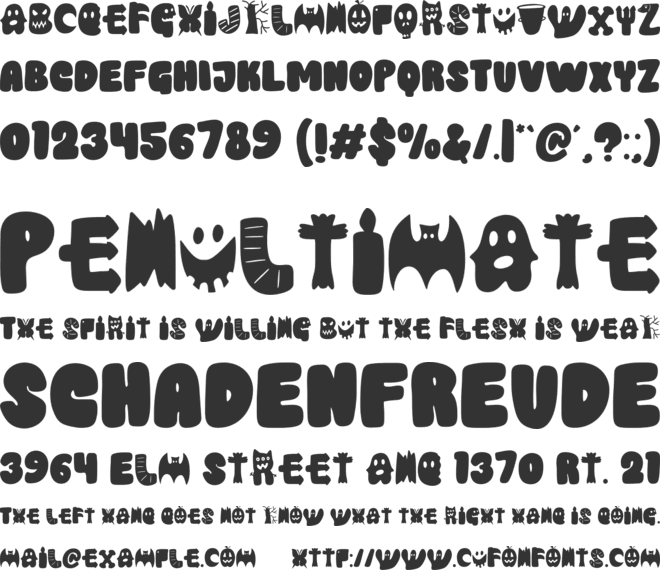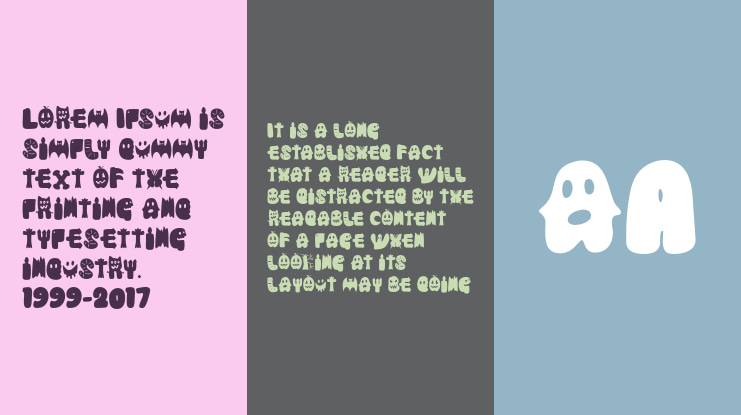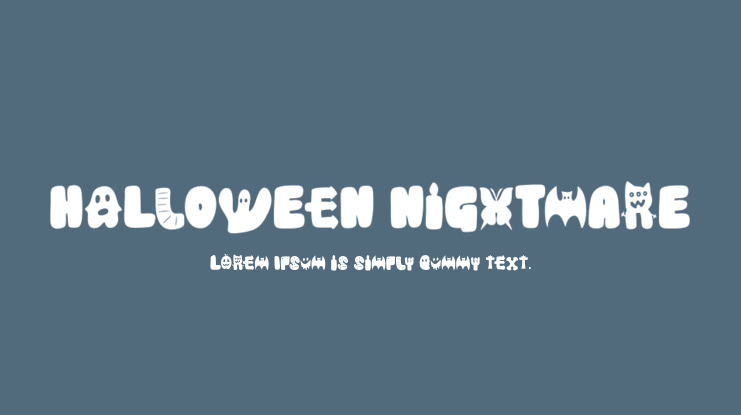
Halloween Nightmare Font
Introducing Halloween Nightmare, an eerie and captivating font that adds a touch of spookiness to any project. Its playful letters make it perfect for Halloween crafts, horror movie posters, t-shirts, and more. Meticulously crafted to be adored by all, this font has the power to elevate your creative concepts to new heights!